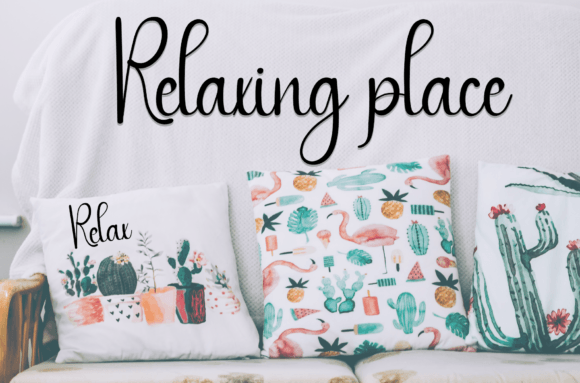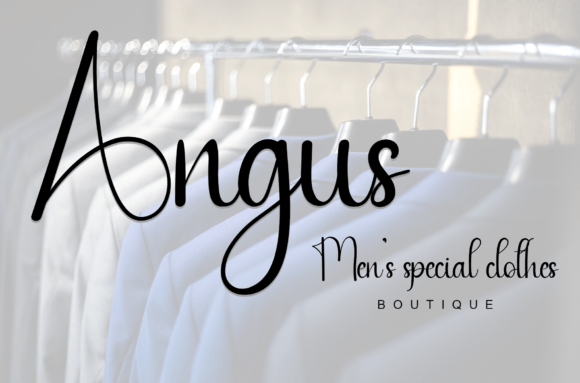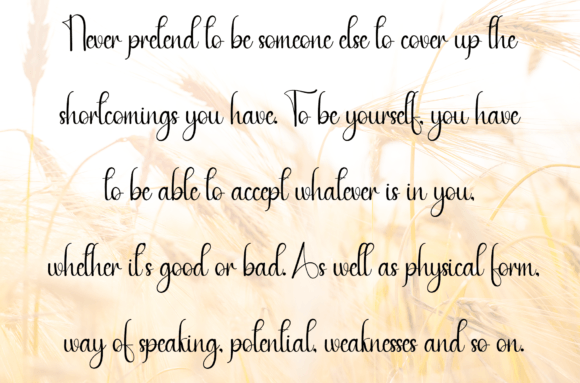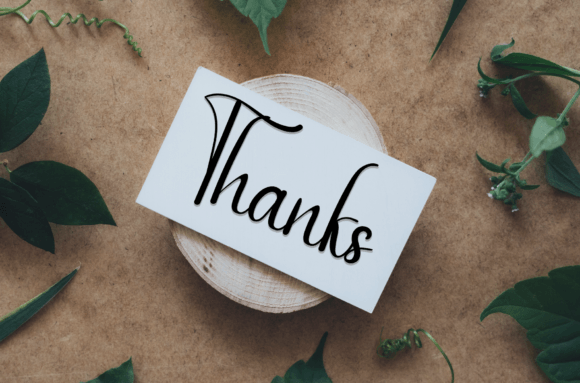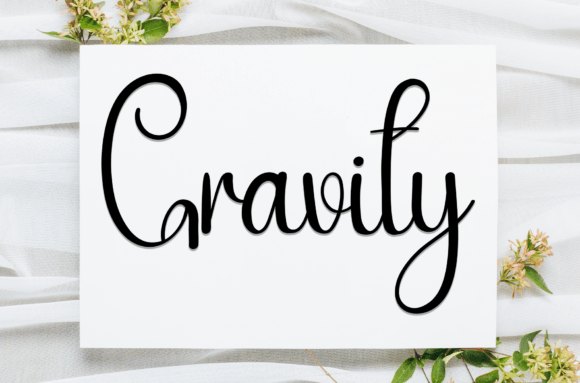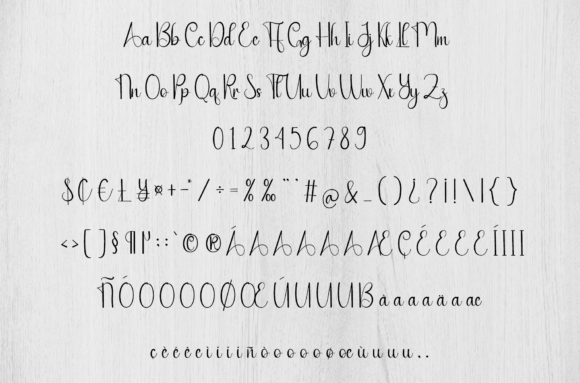
Homemade Font
About Homemade Font
Homemade font features a fresh and elegant handwritten style, crafted to add a warm and personal touch to your creative designs. This font is perfect for a wide range of projects, combining modern flair with timeless charm.
Perfect for Wedding Invitations and Wall Displays
The graceful handwritten strokes of Homemade font make it an excellent choice for wedding invitations, thank you cards, and wall displays. Its unique style adds a heartfelt, intimate feel that elevates any design, making your special occasions truly memorable.
Ideal for Social Media and Branding
Homemade font enhances social media posts, logos, and branding materials by giving them a friendly and approachable personality. It helps brands connect with audiences through its natural, handcrafted appearance.
Great for Packaging and Product Design
Use Homemadefont to bring authenticity and style to product labels, and advertisements. Its handwritten touch makes products stand out on shelves, appealing to customers who appreciate quality and uniqueness.
Versatile for Multiple Creative Uses
Beyond invitations and packaging, Homemadefont works on photography watermarks, stationery, and various print or digital media projects. Its adaptability and stylish simplicity make it a valuable tool for any  toolkit.
Why Choose Homemade Font?
With its balanced and flowing style, Homemadefont offers versatility and elegance. It adds personality and charm to all your creative projects, making it a perfect choice for designers looking to infuse warmth and into their work.